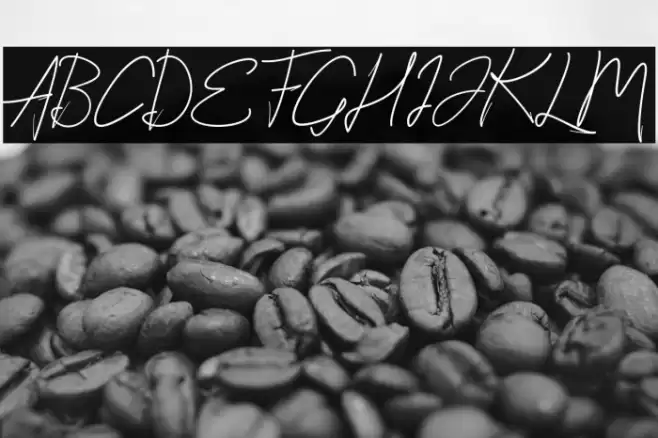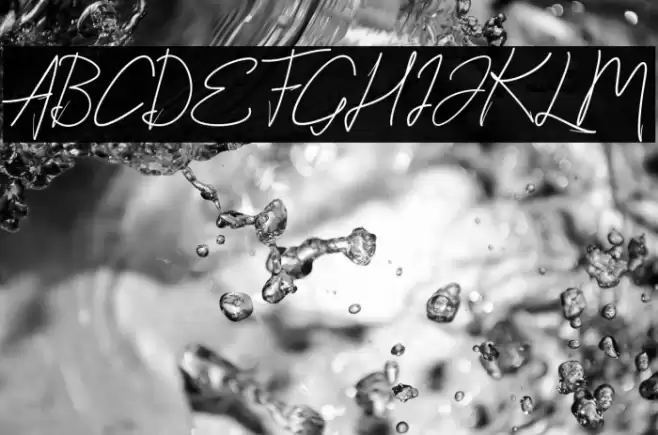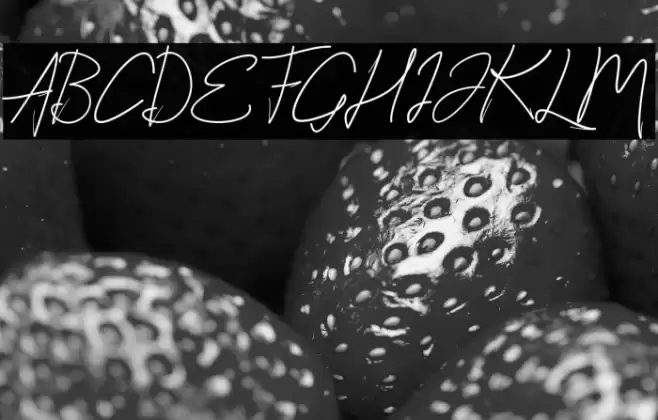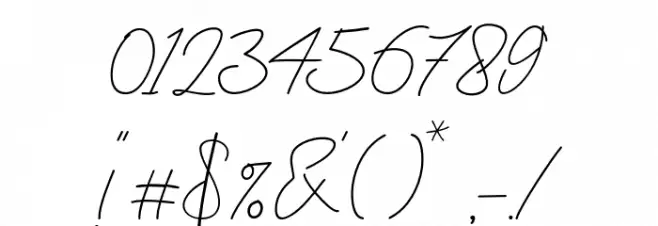
StylishScript Font
StylishScript Description
This elegant script font features a flowing, cursive style with a handwritten appearance. The letters are connected, creating a seamless and fluid look. The strokes are thin and delicate, giving the font a light and airy feel. The uppercase letters are slightly taller and more pronounced, while the lowercase letters maintain a consistent baseline, enhancing readability. The numerals and special characters are designed to match the overall aesthetic, ensuring a cohesive look across all text elements. This font exudes sophistication and charm, making it ideal for projects that require a personal touch.
A flowing, cursive script font with a delicate, handwritten style from Uncategorized fonts.
- Proposed Projects: Ideal for wedding invitations, greeting cards, personal branding, and elegant stationery.
- Weight: Light
- Overall Style: Elegant, Handwritten
- Use Case: Invitations, Personal branding, Decorative text